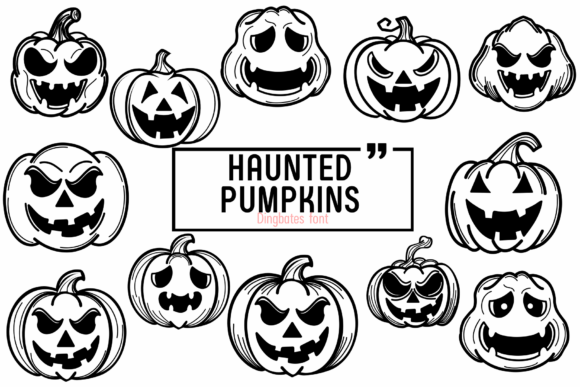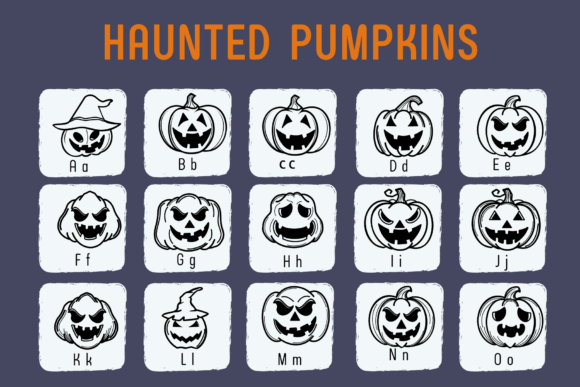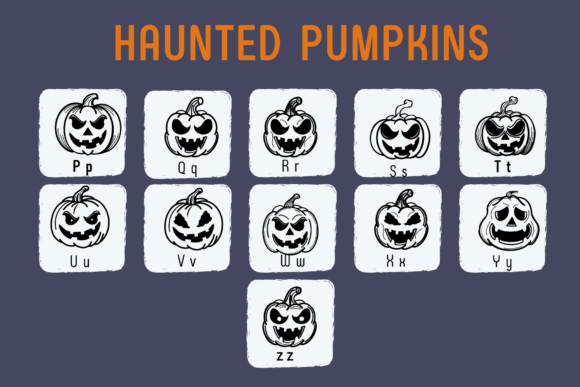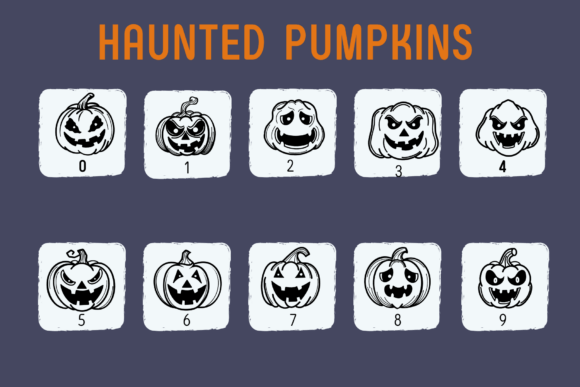
Get Ready to Carve Up Your Design Game with Haunted Pumpkins Font
Do you remember the excitement of rummaging through your grandfather’s attic, uncovering old Halloween decorations and dusty spider webs? The thrill of finding that perfect pumpkin to carve and illuminate your porch is a feeling many of us cherish. As designers, we’re always on the lookout for that special something to elevate our creative projects and make them stand out. That’s where the Haunted Pumpkins Font comes in – a fun dingbats font with a spooky theme that’s sure to add a touch of magic to your designs.
This delightful font is more than just a novelty; it’s a valuable tool for designers who want to inject some personality into their work. With the Haunted Pumpkins Font, you can add a layer of whimsy and playfulness to your projects, making them truly unforgettable. Whether you’re creating a spooky Halloween scene or a whimsical autumnal design, this font is sure to be a hit.
- Font Family: Haunted Pumpkins
- Unique Characteristic: Includes a variety of spooky and Halloween-themed symbols and glyphs, making it perfect for seasonal designs and decorations
Haunted Pumpkins Font Review
I recently had the chance to work with the Haunted Pumpkins font, and I’m excited to share my honest review with you.
- Unique and creative design: The Haunted Pumpkins font has a distinctive, playful feel that’s perfect for Halloween-themed projects or designs that need a bit of whimsy.
- Well-crafted letters: The font is well-designed, with clean lines and balanced proportions that make it easy to read and use.
- High-quality glyphs: The font includes a range of glyphs, including punctuation and special characters, that are well-designed and consistent with the overall aesthetic.
- Limited language support: The font may not support all languages or character sets, which could be a limitation for designers working on multilingual projects.
- No bold or italic styles: While the font is well-designed, it’s a single weight, which may not provide enough options for designers who need to emphasize certain text.
- Not suitable for body text: While the font is great for headings or titles, it may not be the best choice for body text, where readability is key.
Overall, I think the Haunted Pumpkins font is a fun and creative option for designers who need a unique, Halloween-themed font. While it may have some limitations, it’s well-designed and easy to use.
For a spooky effect, use the font in combination with other Halloween-themed elements, such as jack-o-lanterns and cobwebs.
For a unique effect, use the font in combination with other creative elements, such as glow effects and layer blending modes.
For a fun and playful effect, use the font in combination with other Halloween-themed graphics and animations.
Some common use cases for the Haunted Pumpkins Font include:
- Halloween party invitations and decorations.
- Spooky-themed social media posts and graphics.
- Halloween-themed website headers and banners.
Remember to experiment with different font sizes, colors, and styles to achieve the desired effect.
Comparison: Haunted Pumpkins Font has a more distinctive and quirky feel, while Crimson Text is more versatile and suitable for a wider range of designs.